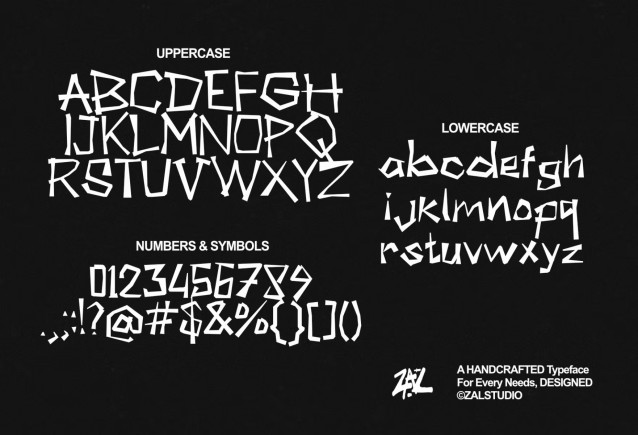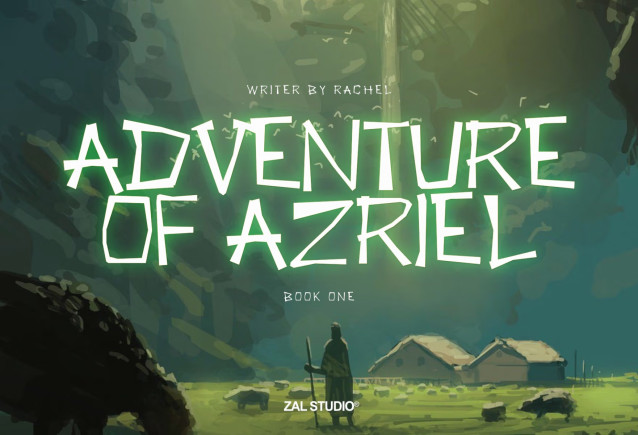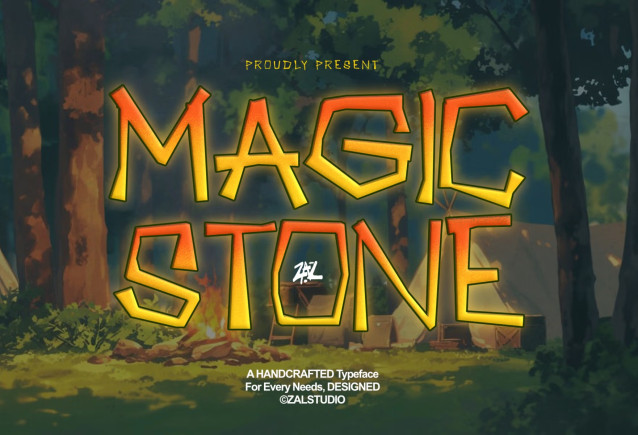
Magic Stone is a bold and expressive display typeface designed to bring a powerful, adventurous, and handcrafted character to your creative projects. With its distinctive letterforms and strong visual personality, Magic Stone is perfect for designs that need an eye-catching headline with a unique and memorable look.
Its rugged yet playful character makes it a great choice for logos, branding, posters, headlines, packaging, apparel, merchandise, album artwork, badges, labels, book covers, and social media graphics.
Magic Stone works especially well for adventure, fantasy, vintage, outdoor, rock, gaming, esports, handmade, and bold graphic design themes. Use it for large typography where personality and visual impact matter most.
Perfect For
- Logo & Brand Identity
- Posters & Headlines
- Packaging Design
- T-Shirt & Apparel Design
- Labels & Badges
- Book & Album Covers
- Merchandise
- Social Media Graphics
- Advertising & Promotional Design
- Gaming & Esports Graphics
- Creative Display Typography
Magic Stone Bold Letters. Wild Character.